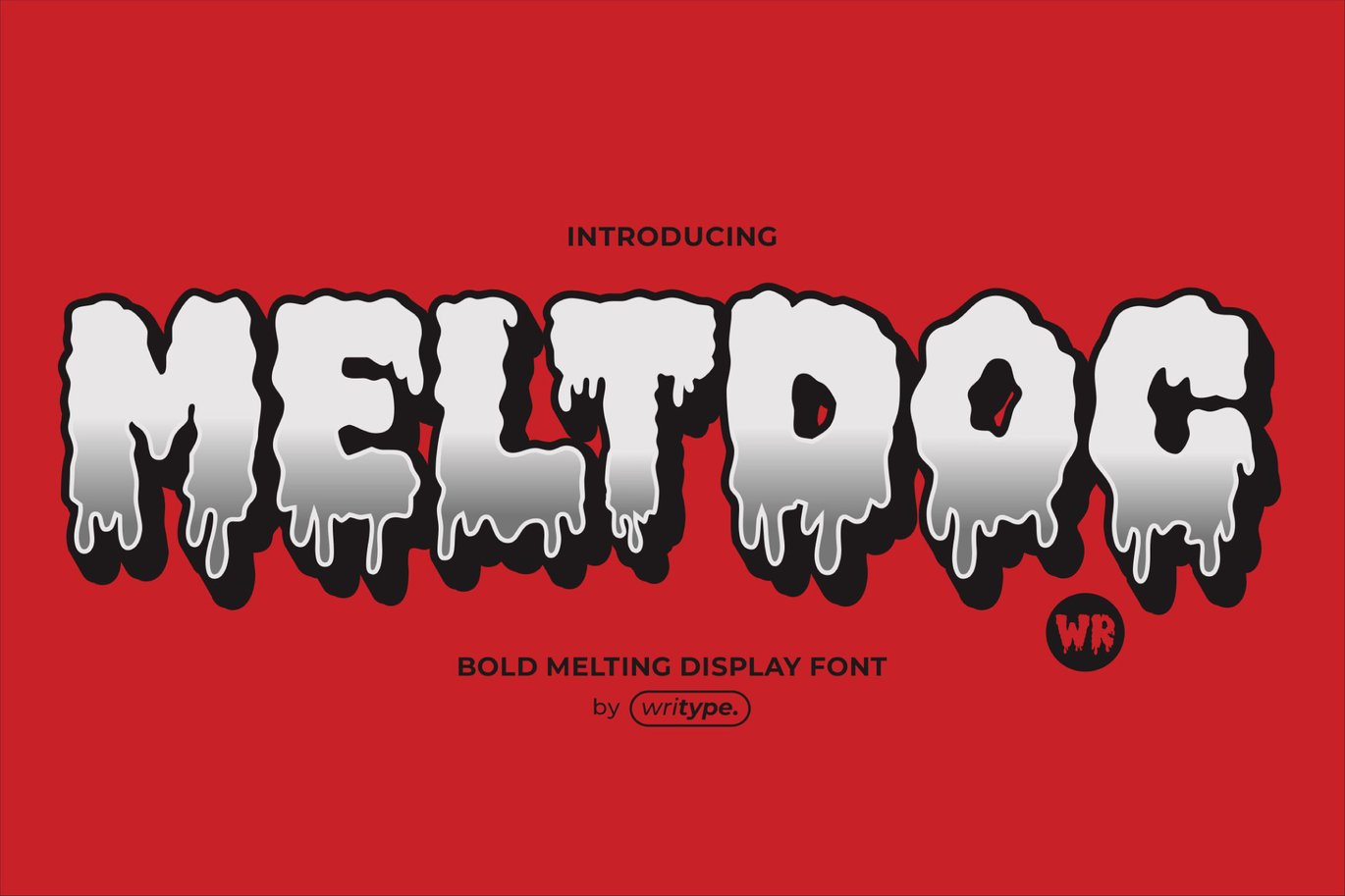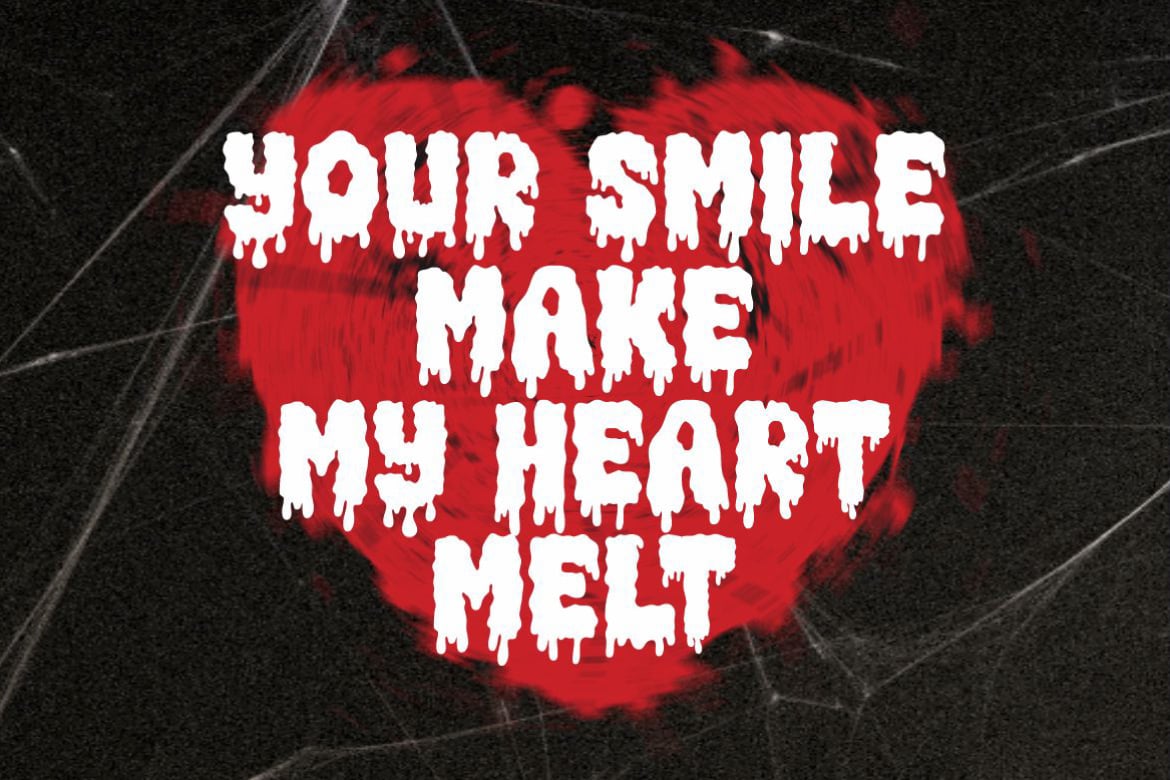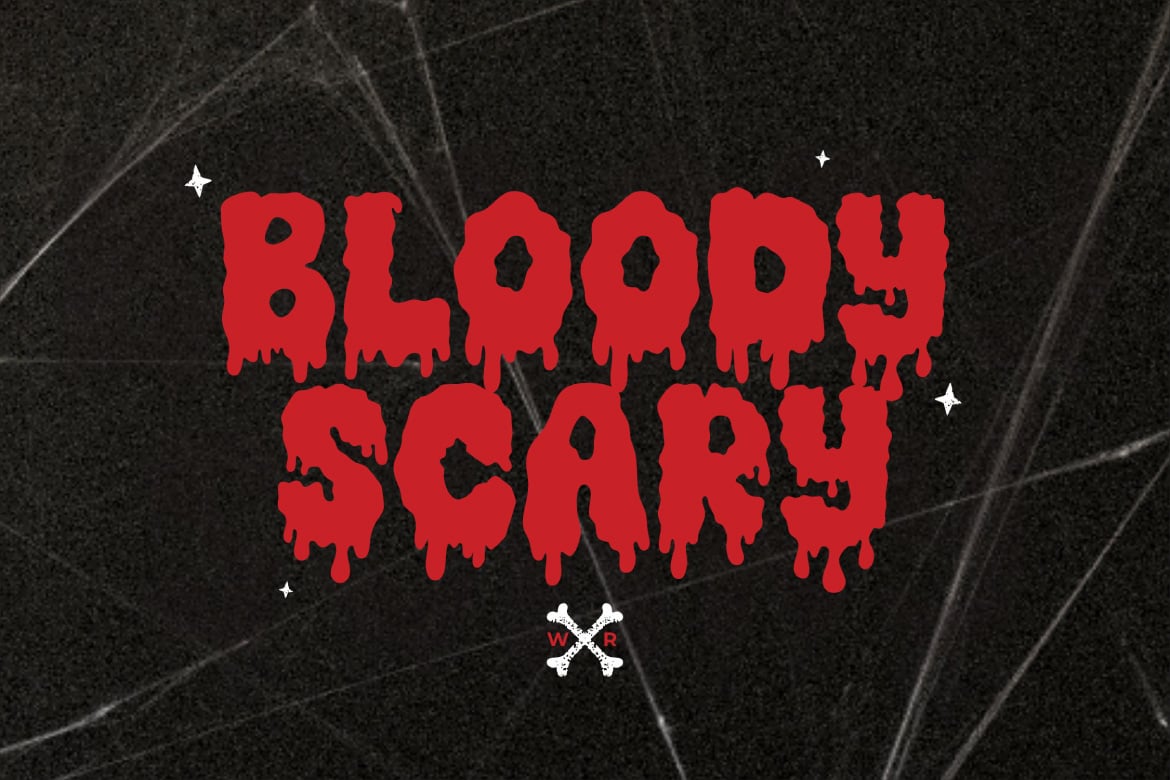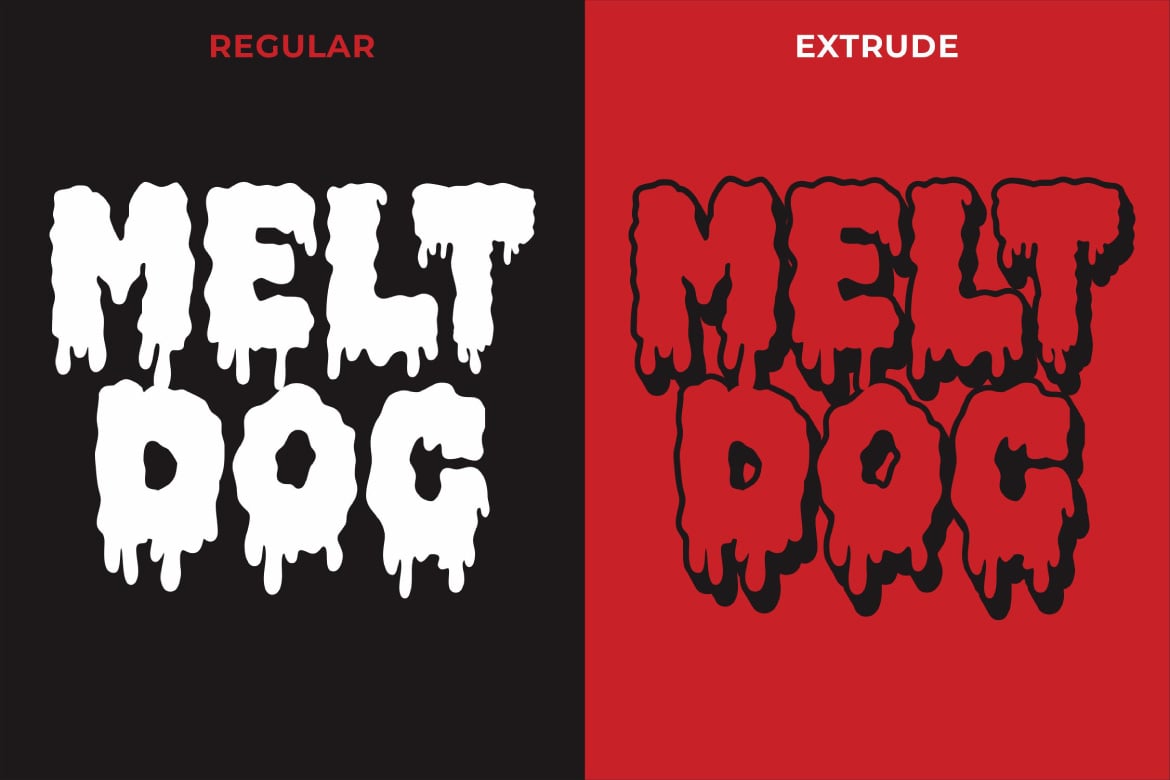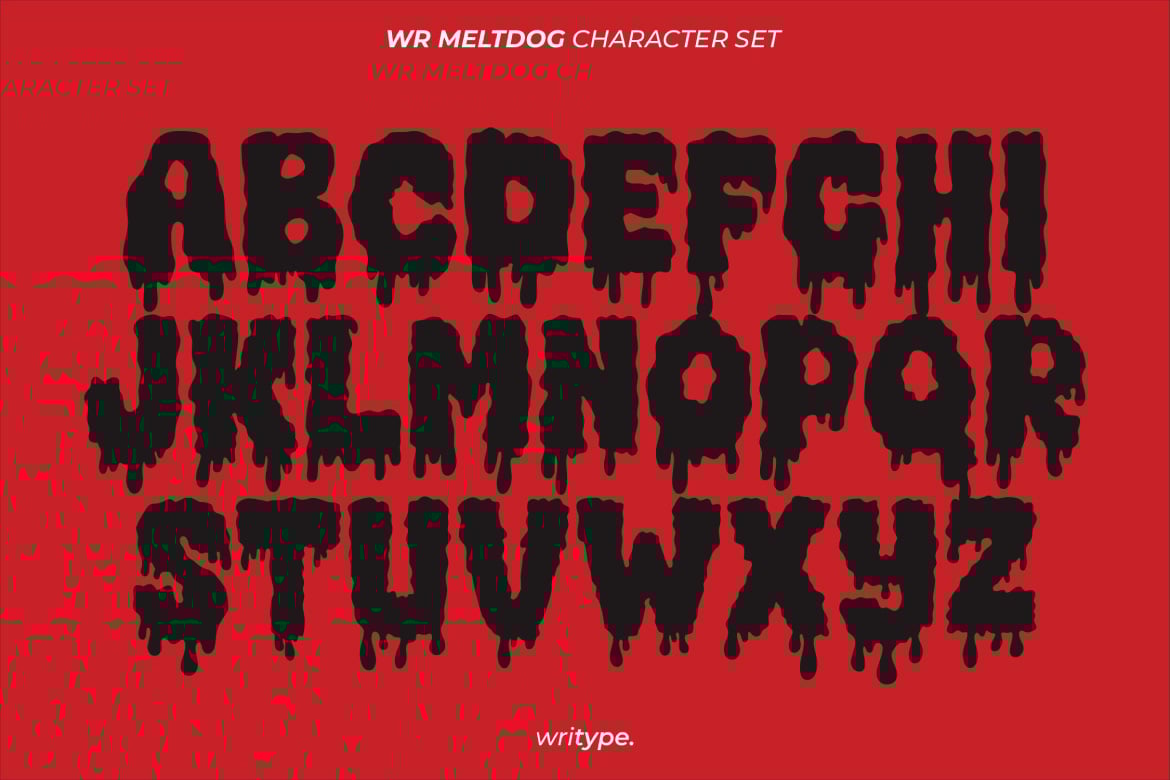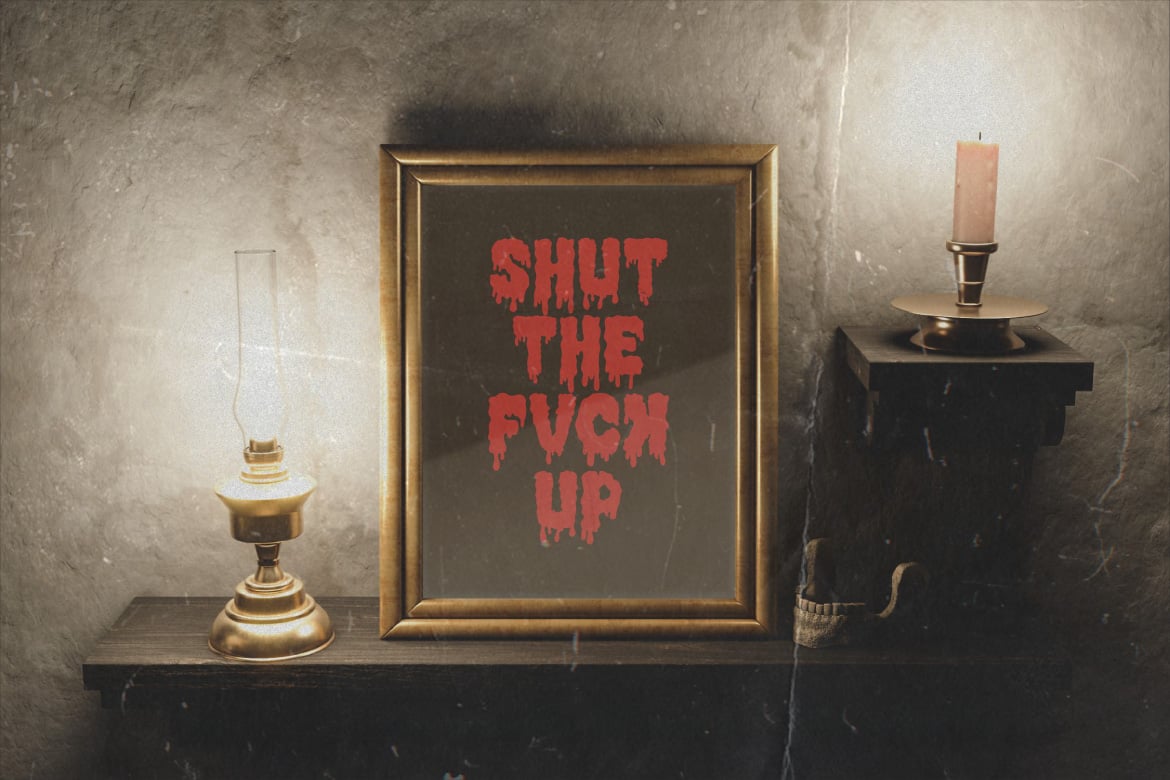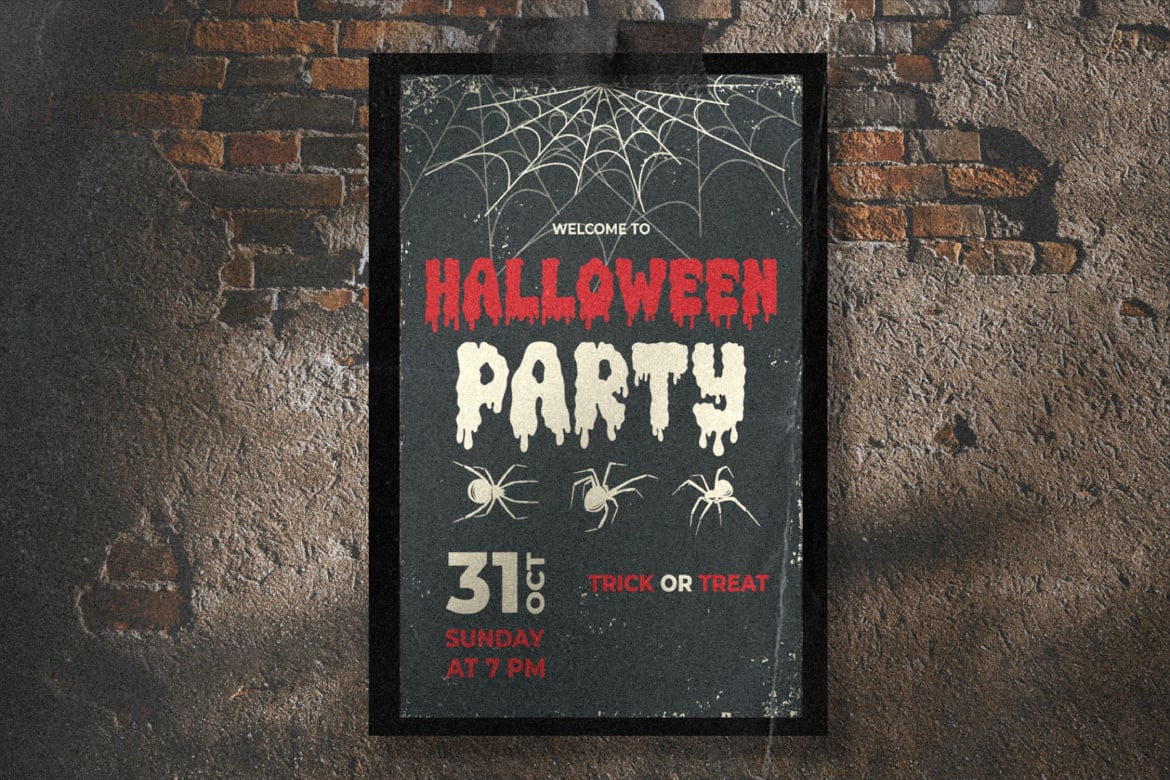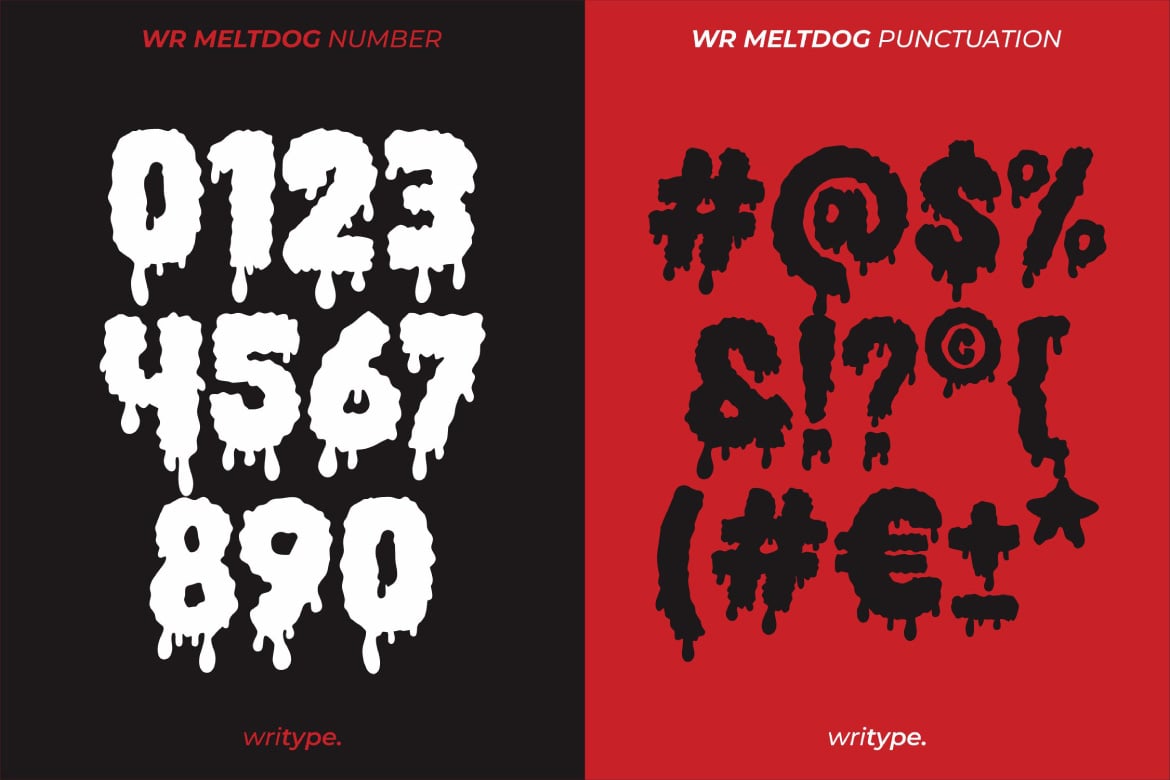
Meltdog – Melted Display Font
WR Meltdog – Melted Display Font by WriType
WR Meltdog is a bold hand-drawn font with a melting effect, available in Regular & Extrude styles. Perfect for posters, branding, and logos, it brings a striking, dynamic, and edgy look to any design. Let your creativity drip with style!